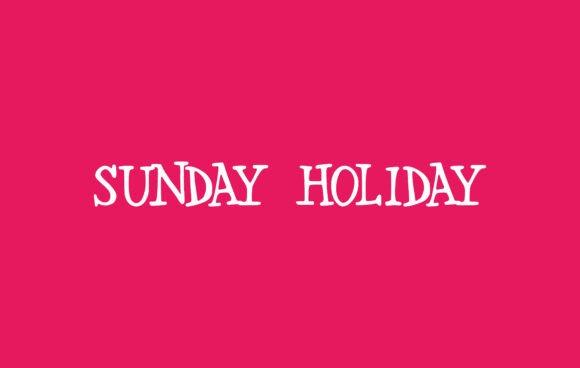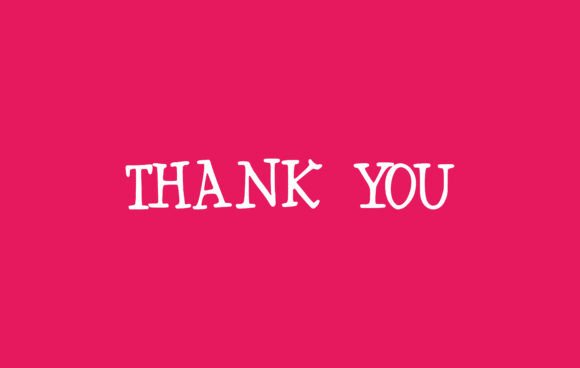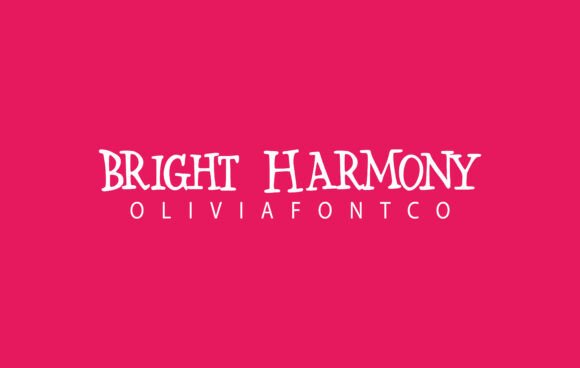
Introducing Bright Harmony Font: Elevate Your Designs with a Touch of Romance
In the world of typography, a font can make all the difference in bringing your creative vision to life. If you’re a designer, crafter, or simply someone who appreciates the art of beautiful writing, then you’re in for a treat. Say hello to Bright Harmony Font, an authentic handwritten font that exudes a romantic touch and is sure to capture your heart.
What Makes Bright Harmony Font Special?
Bright Harmony Font is more than just a collection of letters; it’s an experience. Expertly designed to be a true favorite among designers and crafters, this font has the potential to elevate your creative ideas to new heights. Its unique blend of elegance and playfulness makes it perfect for a wide range of design projects, from magazine headlines and social media graphics to branding, wedding invitations, and greeting cards.
Legibility and Versatility
One of the standout features of Bright Harmony Font is its exceptional legibility. Whether you’re using it as a title or body text, this font looks great and ensures that your message is conveyed clearly and effectively. Its versatility is another significant advantage, allowing you to experiment with different design styles and applications.
So, what can you create with Bright Harmony Font? The possibilities are endless! Here are a few ideas to get you started:
- Magazine Headlines: Add a touch of sophistication and glamour to your magazine covers with Bright Harmony Font.
- Social Media Graphics: Create eye-catching social media posts and stories that showcase your brand’s personality.
- Branding: Establish a consistent visual identity for your business with this beautiful font.
- Wedding Invitations: Make your special day even more memorable with elegant and romantic wedding invitations.
- Cards and Stationery: Design beautiful greeting cards, thank-you notes, and other stationery items that will leave a lasting impression.
Why Choose Bright Harmony Font?
With so many fonts available, what sets Bright Harmony Font apart? Here are a few compelling reasons to choose this font for your next project:
- Unique and Authentic: Bright Harmony Font is a one-of-a-kind, handmade font that adds a personal touch to your designs.
- Romantic and Elegant: This font exudes a sense of romance and sophistication, making it perfect for projects that require a touch of class.
- Highly Legible: Bright Harmony Font is designed to be easy to read, ensuring that your message is conveyed clearly and effectively.
- Versatile: This font can be used for a wide range of design projects, from digital graphics to print materials.
- Authentic handwritten font
- Romantic and elegant
- Highly legible
- Versatile
- Perfect for magazine headlines, social media graphics, branding, wedding invitations, and more